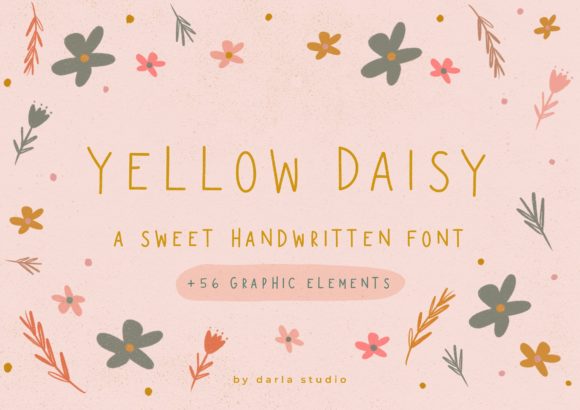
Prepare yourself to be captivated by the enchanting Yellow Daisy Font, a whimsical sans serif creation by Darla Studio. Its playful personality and charming curves are sure to add a touch of magic to all your creative endeavors. Let your imagination soar as you explore the endless possibilities that await you with this remarkable font.
With Yellow Daisy, your words will dance off the page, leaving a trail of elegance and joy. Its delicate strokes and smooth lines evoke a sense of warmth and playfulness, inviting your readers to embark on a delightful journey. Whether you're crafting heartfelt quotes, designing eye-catching logos, or creating unique branding materials, this font will elevate your work to new heights.
Picture this: a stunning invitation adorned with Yellow Daisy's playful charm, promising an unforgettable event. Or imagine greeting cards that come to life with the font's cheerful spirit, spreading happiness wherever they go. And what about those irresistible T-Shirt designs that speak volumes about your personality? With Yellow Daisy, your creativity will know no bounds.
But that's not all! Yellow Daisy is also the perfect companion for your Digital Planner, adding a touch of whimsy to your daily routine. Its versatility extends to Stickers and Social Media, where it will make your posts pop with personality. And if you're looking to add a handwritten touch to any project, Yellow Daisy is your go-to font.
As an added bonus, this remarkable font comes with a delightful clipart set, unleashing a world of creative possibilities. Play around, mix and match, and let your imagination run wild as you bring your projects to life.
So why settle for ordinary when you can embrace the extraordinary? Choose Yellow Daisy Font and watch as your creative dreams take flight. Let its beauty and charm work their magic, transforming your words and designs into captivating masterpieces. Experience the joy of self-expression like never before!